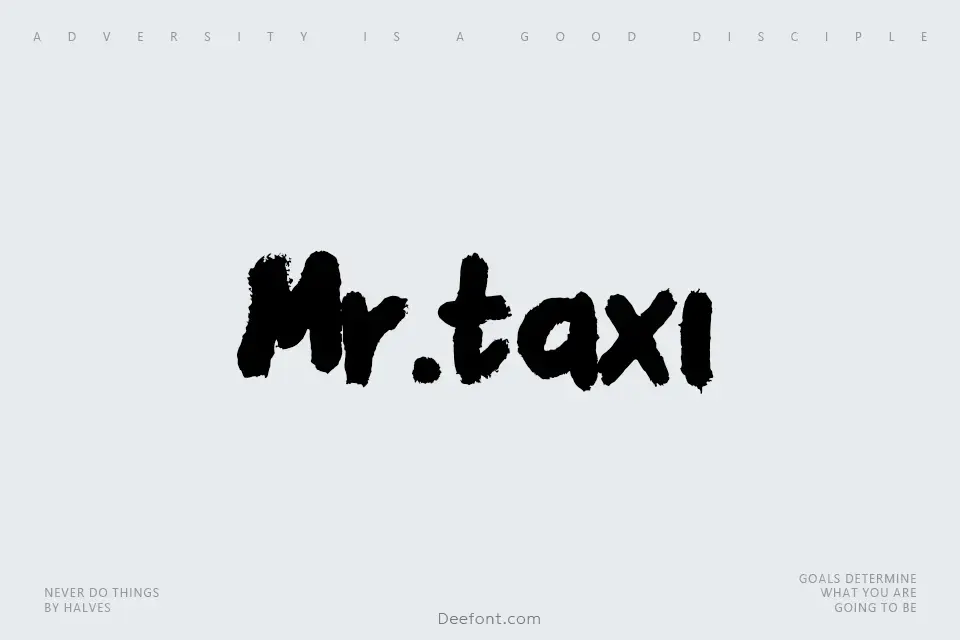
Mr.taxi Font
Mr.taxi Font is a distinctive hand-drawn display script that combines playful, casual strokes with an urban trash aesthetic. Featuring irregular letterforms and organic curves, this typeface excels at creating attention-grabbing headlines, poster designs, and artistic branding compositions. Perfect for designers seeking authentic, street-style typography that adds personality to editorial layouts, creative campaigns, and distinctive visual communications. Its charming imperfections and dynamic letterforms make it ideal for projects requiring youthful energy and unconventional design appeal.****For more information contact me at: sonajinur@gmail.com
Designed by:Type Graphy